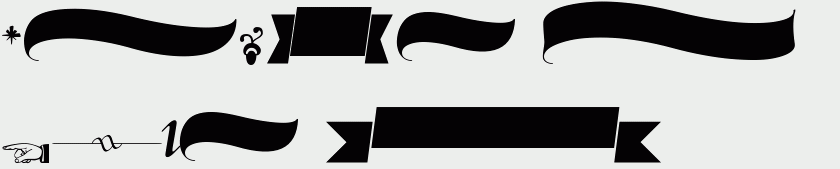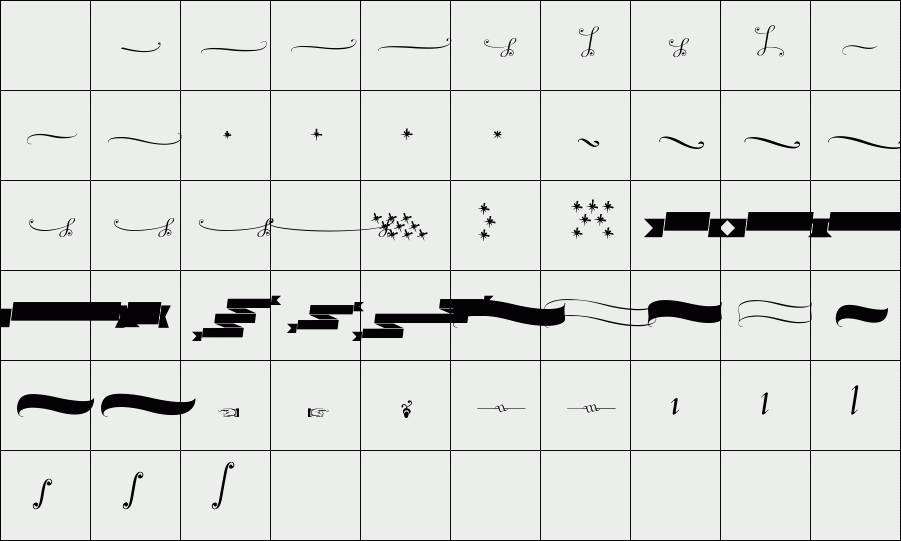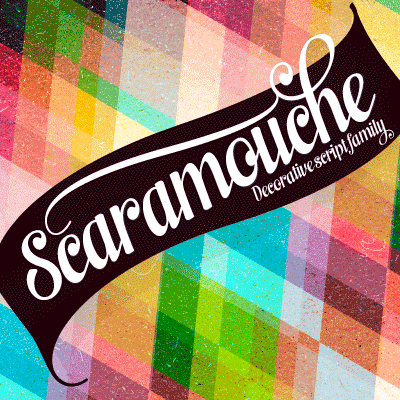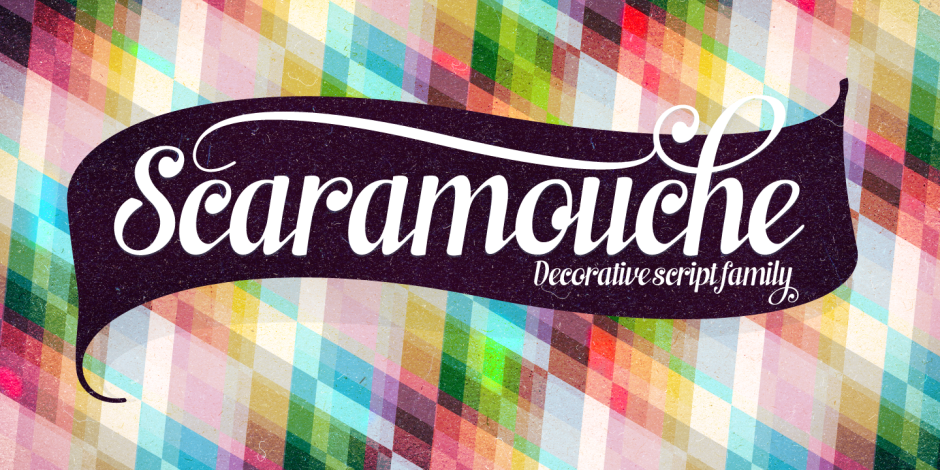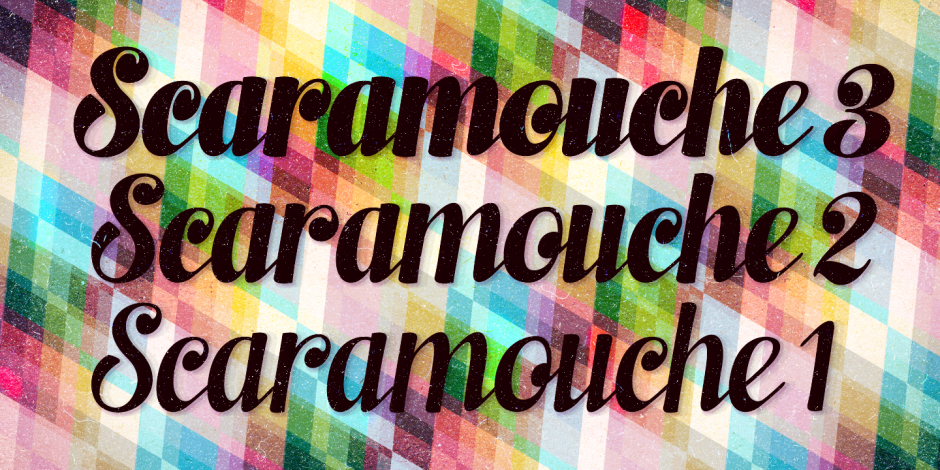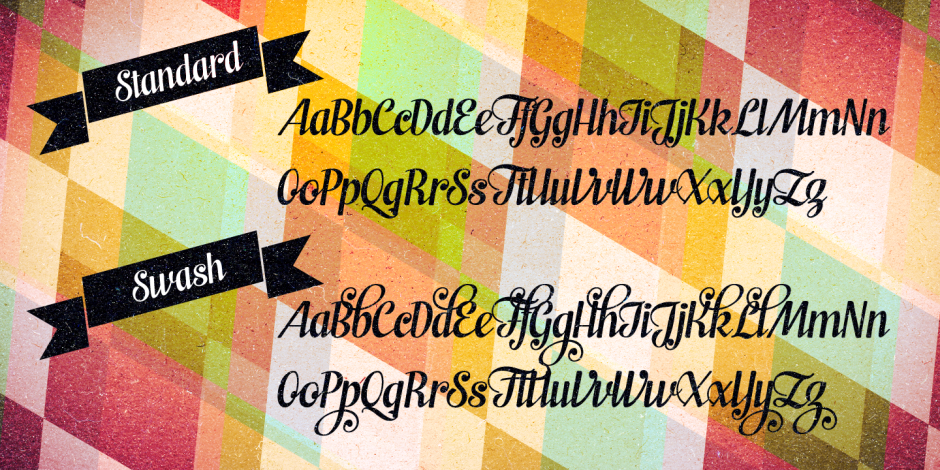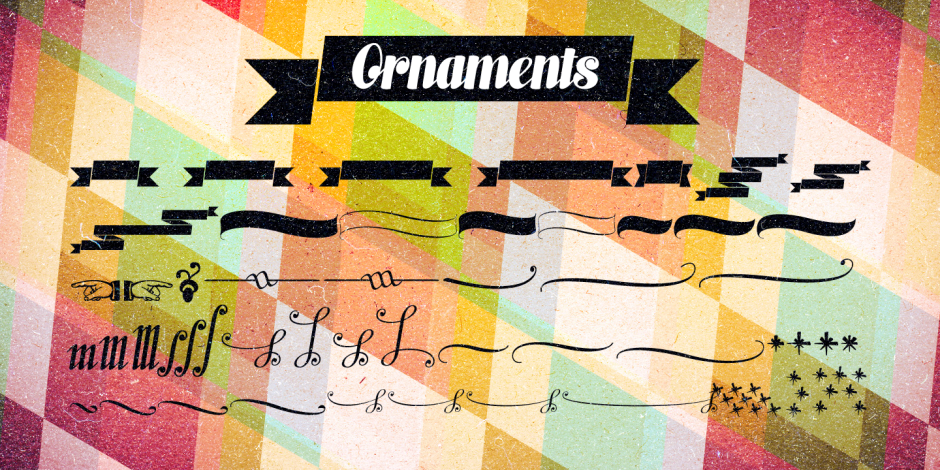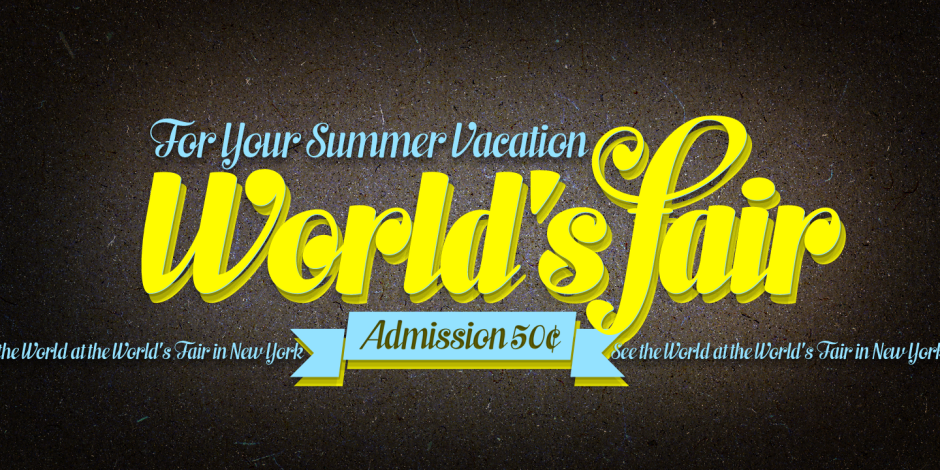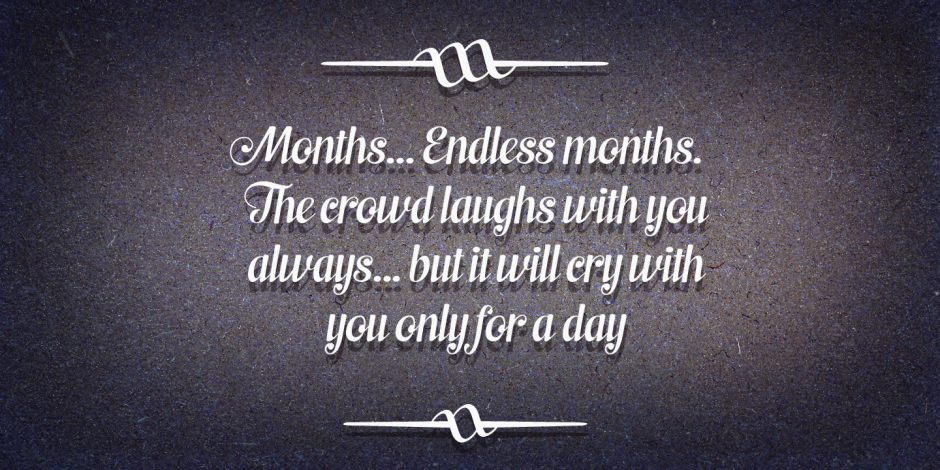
Scaramouche
/ Scaramouche 1 Ornaments
Scaramouche is a decorative and playful connected script. Scaramouche family has three weights
and matching ornament sets. For the best price purchase the whole family.
Scaramouche has plenty of alternate characters; click on Swash, Contextual or Stylistic alternates
in any OpenType savvy program for decorative alternates.